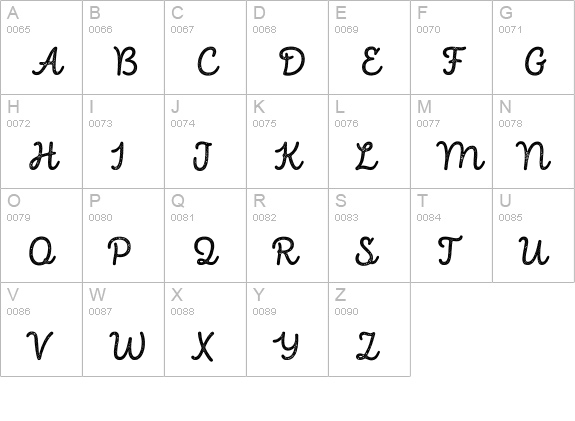
Intro Script B H2 Base Font Details
Intro Script B H2 Base font is a stunning display typeface that exudes elegance and sophistication. With its unique and stylish design, this font is perfect for creating eye-catching headlines, titles, and signage. The sleek curves and sharp angles of Intro Script B H2 Base font make it a versatile choice for both digital and print designs. The best part is that this font is available for free download at FontsMarket.com, making it accessible to designers and creatives looking to elevate their projects without breaking the bank. So go ahead and give your designs a touch of sophistication with the Intro Script B H2 Base font today!